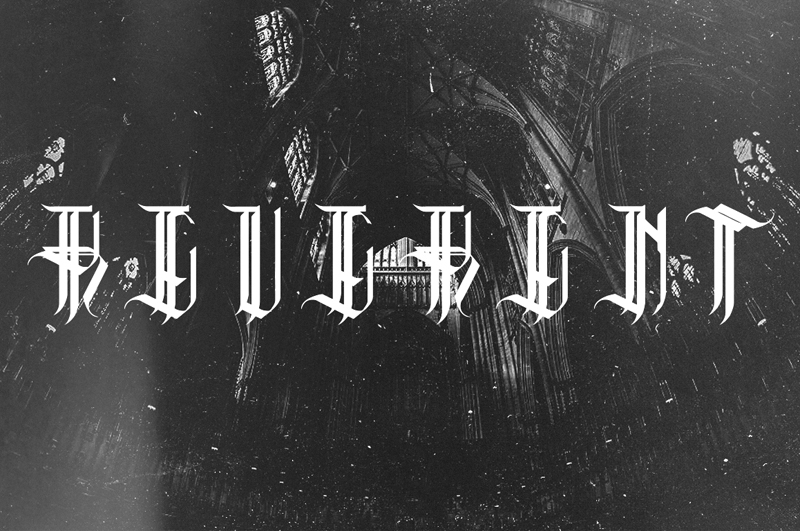
font by Daniel Owen Reverent - To feel or show deep & solemn respect. Reverent is a typeface inspired by the history of the blackletter type family, paying tribute to its sometimes tarnished past, multitude of uses & aesthetic visual inspirations, it is to be used to invoke an atmospheric tone under the guise of a twisting, dagger like display face. For commercial use, please purchase via creative market - https://creativemarket.com/nmsisdsign/310426-REVERENT-TYPEFACE |